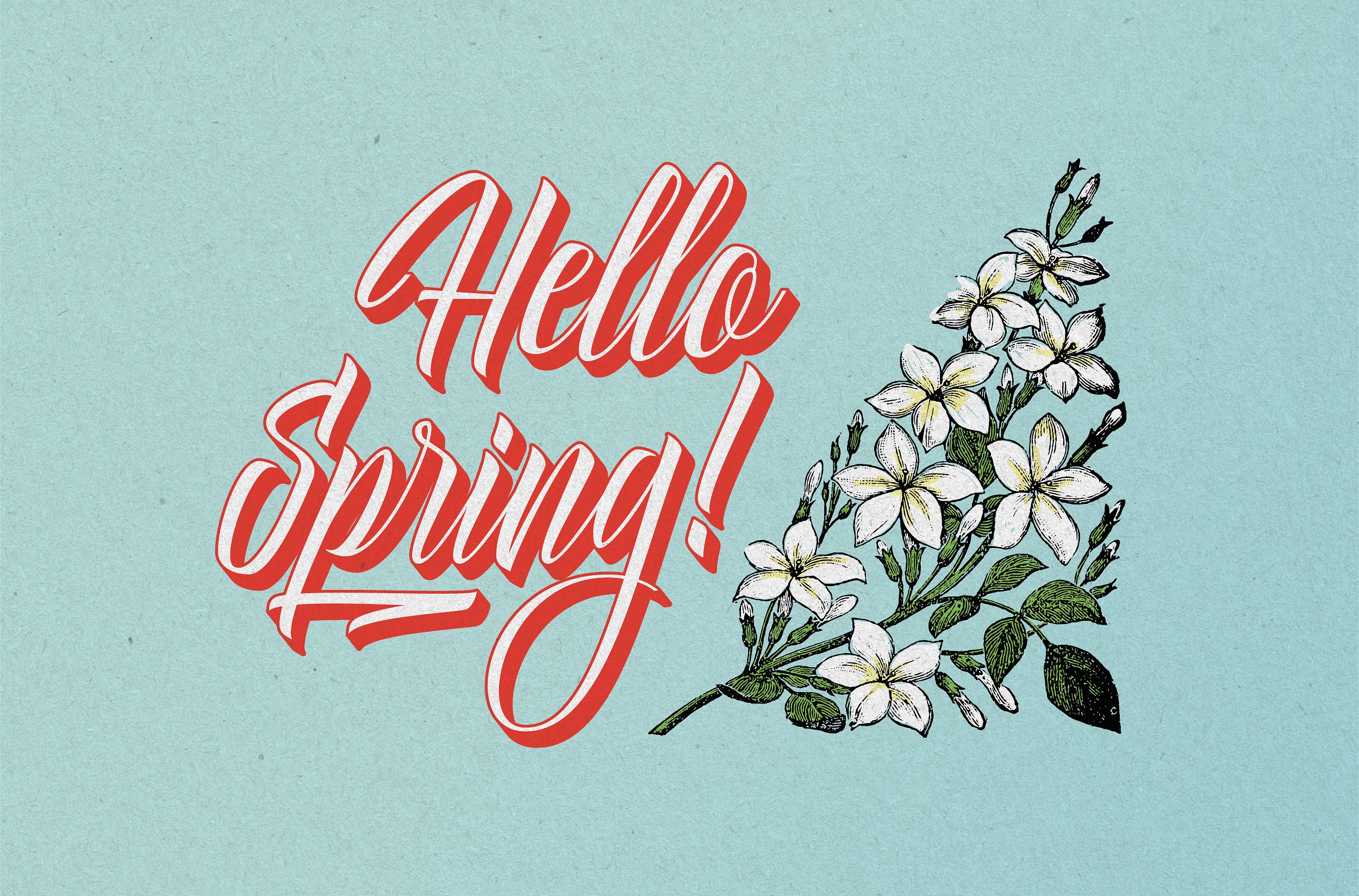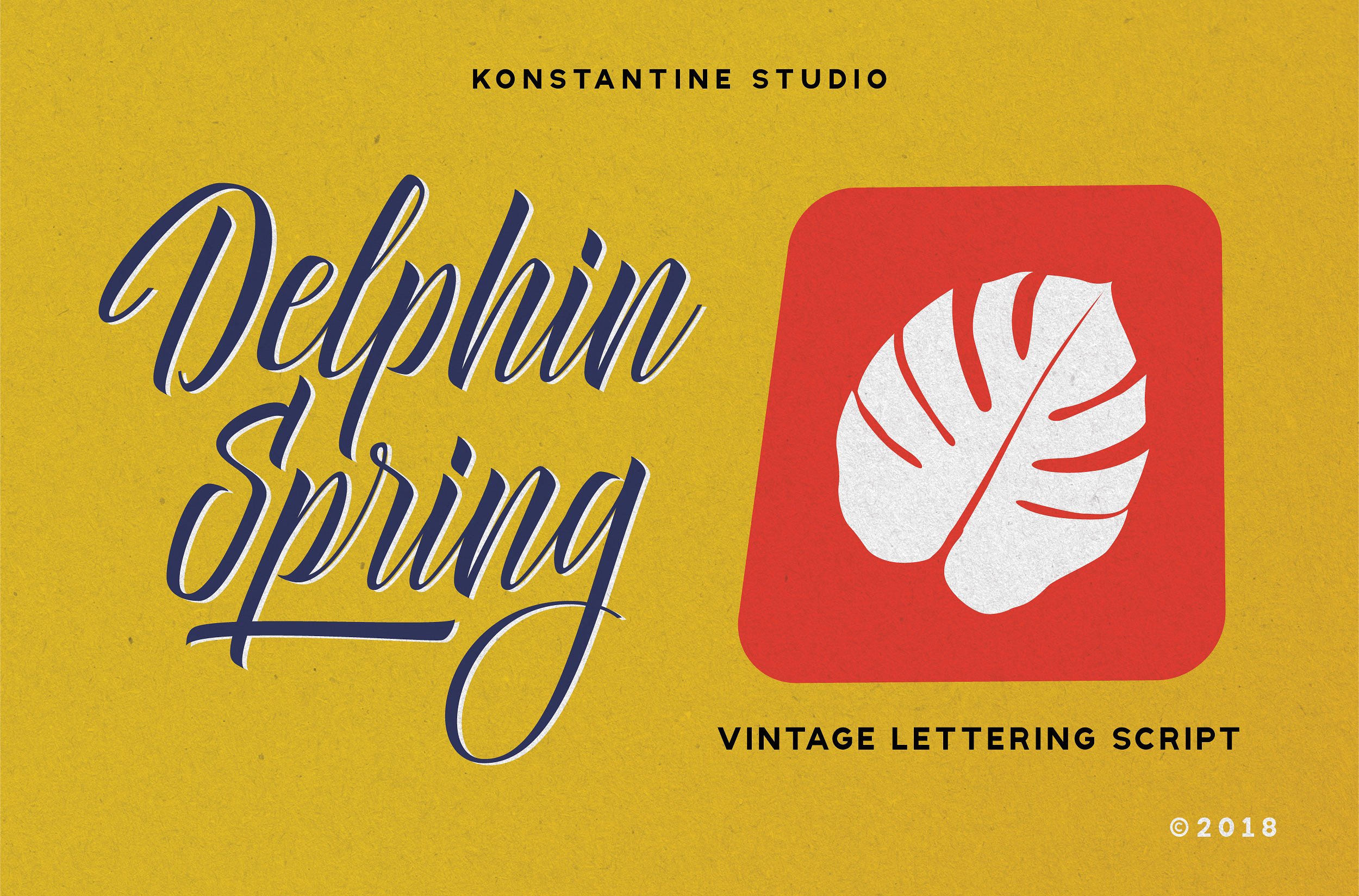
Delphin Spring Vintage Script Font
Delphin Script, A clean and casual vintage script lettering font. Inspired from the brush lettering from the old label and we try to implement it into font so it can be use into a nowadays branding needs. Fit very well for your casual logo, branding, visual identity, end product for sale, etc. Easy by just typing out the text you want and you got the fresh and clean brush lettering style typeface.